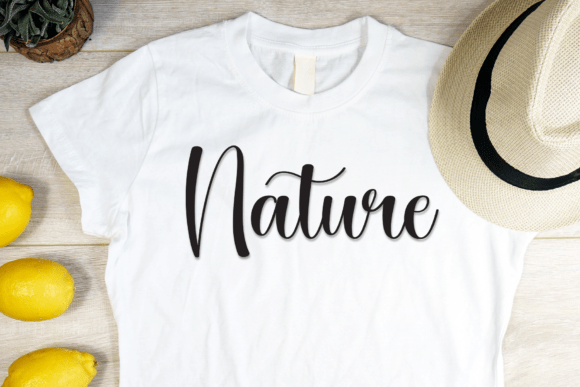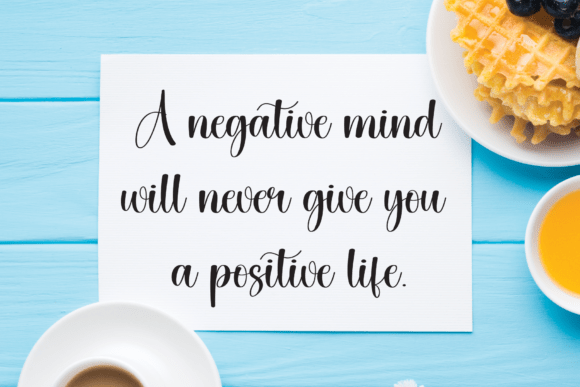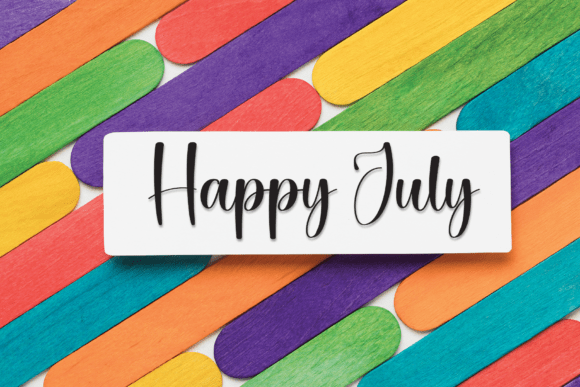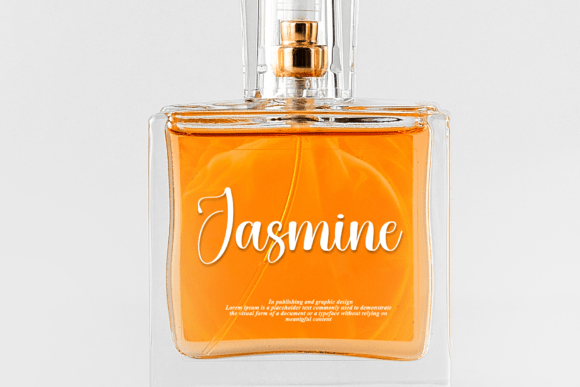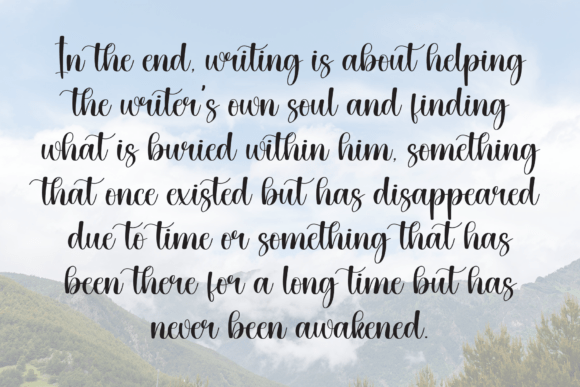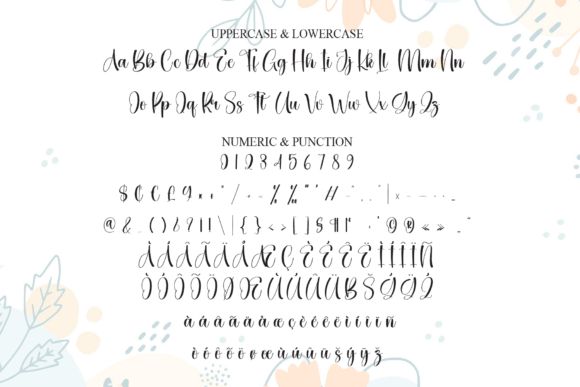
Discover the Charm of Bestya Font: Elevate Your Designs with a Touch of Elegance
In the world of typography, few fonts manage to capture the essence of warmth and personality as effectively as Bestya Font. This charming handwritten script font is a modern calligraphy masterpiece that infuses designs with a friendly and elegant touch. Whether you’re a designer looking to elevate your branding, a crafter seeking the perfect style for your greeting cards, or simply someone who appreciates beautiful typography, Bestya Font is sure to captivate your creative senses.
The Unique Characteristics of Bestya Font
Bestya Font stands out in the realm of script fonts due to its distinctive features:
- Smooth Curves: The font boasts fluid, smooth curves that lend a sense of softness and approachability to any design.
- Playful Swashes: Adding a touch of whimsy, the playful swashes in Bestya Font can be used to enhance the aesthetic appeal of your creative projects.
- Modern Calligraphy Style: With its roots in traditional calligraphy, Bestya Font brings a modern twist that makes it highly versatile for contemporary designs.
One of the key advantages of Bestya Font is its incredible versatility. Its clean yet expressive design makes it suitable for a wide range of applications:
- Branding: Use Bestya Font to create memorable logos and brand identities that exude warmth and personality.
- Greeting Cards: Add a personal touch to your greeting cards, making them stand out with a unique and elegant style.
- Quotes and Sayings: Highlight inspirational quotes and sayings with a font that beautifully balances elegance and readability.
- Logos: Design captivating logos for businesses or personal projects that require a friendly yet sophisticated look.
Why Choose Bestya Font?
In a sea of fonts, Bestya Font offers several compelling reasons to make it your go-to choice:
- Elegant and Friendly: It combines elegance with a friendly vibe, making it perfect for designs that need to connect with the audience on a personal level.
- Eye-Catching: The unique blend of modern calligraphy and playful swashes ensures that your designs grab attention.
- Easy to Read: Despite its elegant and cursive nature, Bestya Font maintains a high level of readability, making it suitable for both headings and body text.
Tips for Using Bestya Font Effectively
To make the most out of Bestya Font, consider the following tips:
- Pair with Complementary Fonts: For maximum impact, pair Bestya Font with simpler fonts to create a balanced and visually appealing design.
- Adjust Swashes: Customize the swashes to fit the tone of your project, adding more flair where needed.
- Experiment with Colors: While Bestya Font looks stunning in classic colors like black and gold, don’t be afraid to experiment with vibrant hues to match your brand’s personality.
Bestya Font is more than just a script font; it’s a tool to infuse your designs with a dose of personality and elegance. Its smooth curves, playful swashes, and modern calligraphy style make it an excellent choice for a myriad of creative projects. Whether you’re looking to create stunning branding, heartfelt greeting cards, or captivating quotes, Bestya Font is sure to elevate your designs to new heights. Discover the charm of Bestya Font today and let your creativity shine with a touch of elegance and warmth.